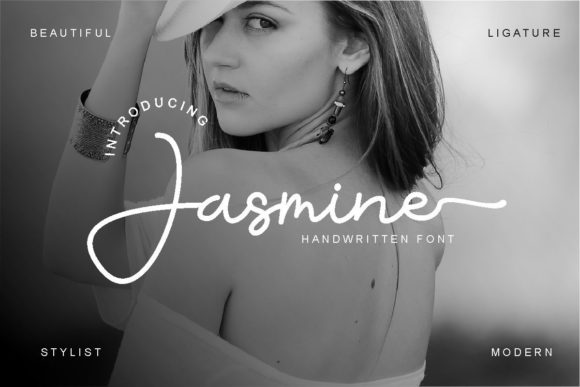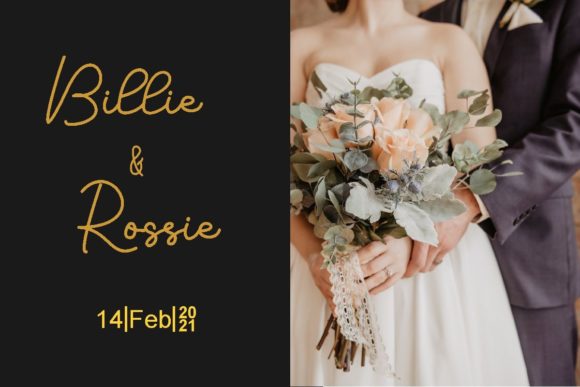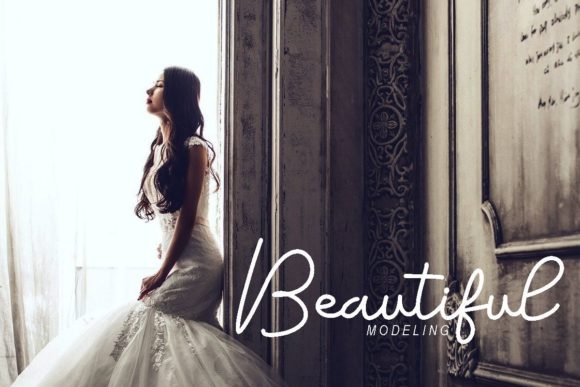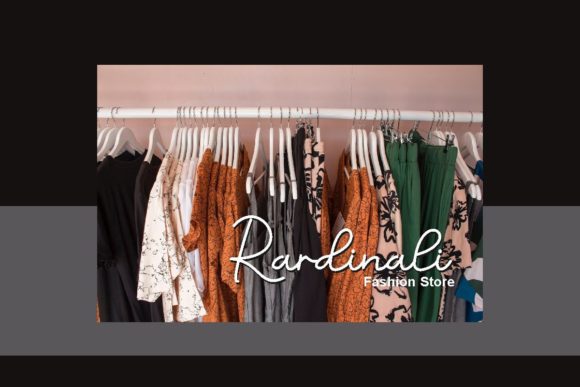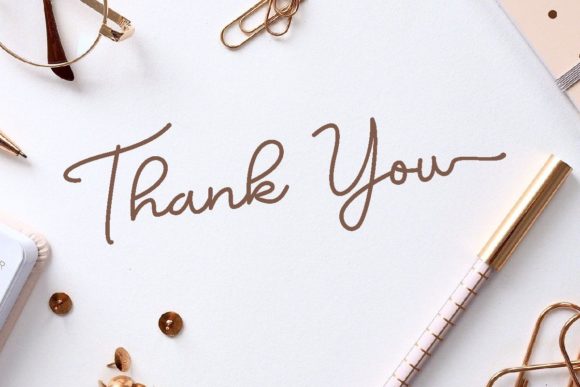
Jasmine Font
About Jasmine Font
Jasmine is an exquisite handwritten font, masterfully designed to become a true favorite. This font is PUA encoded which means you can access all of the glyphs and swashes with ease!